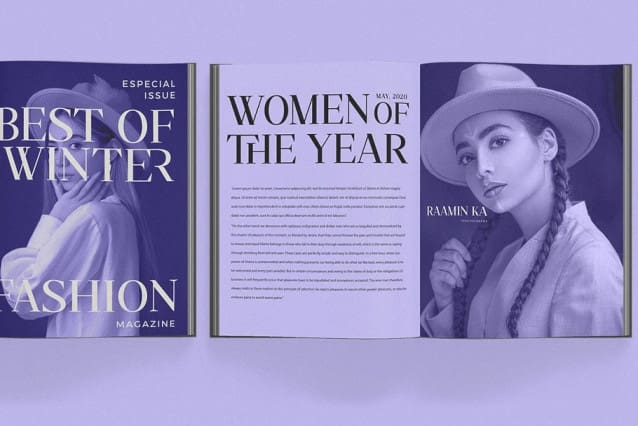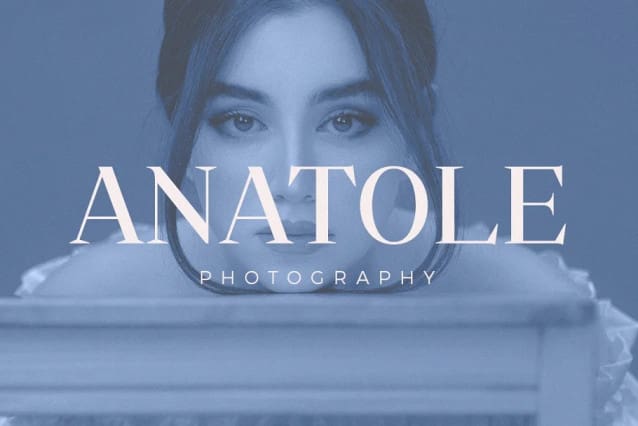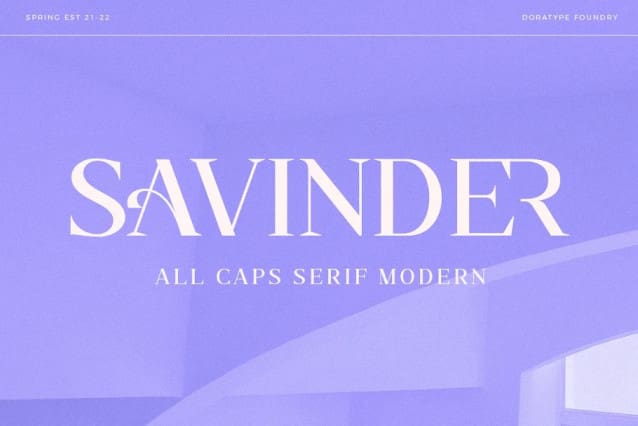
Savinder Font
Savinder Font is a modern and elegant, classy all-capital typeface with unique curves and cuts making it one of the most memorable fonts, perfect for a magazine brand or title. You can also use this font for logos, branding, and it’s versatile for any project too!